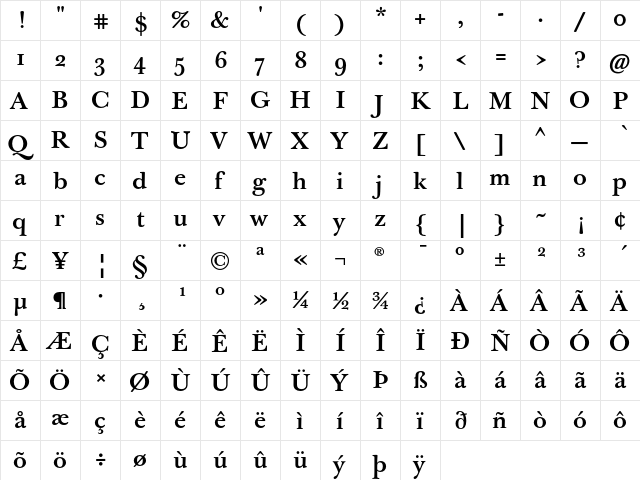
J Baskerville T Med Regular
Design Context for J Baskerville T Med Typeface
J Baskerville T Med takes a measured approach to typography — its balanced proportions and neutral character make it a reliable workhorse for both digital and print work.